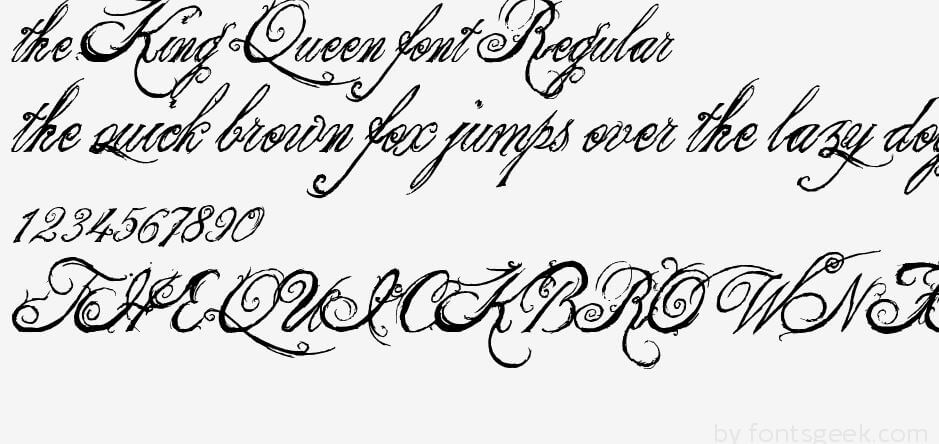
The King & Queen Font Regular Font is one of the primary fonts of the usage of in their operating systems in recent times.
The King & Queen Font Regular Font is similar to lucy script been the use of there. Along with the help of a sign language, a wide variety of weights and italics with a humanist experience.